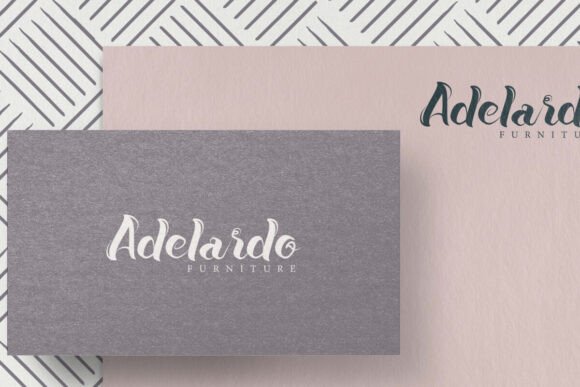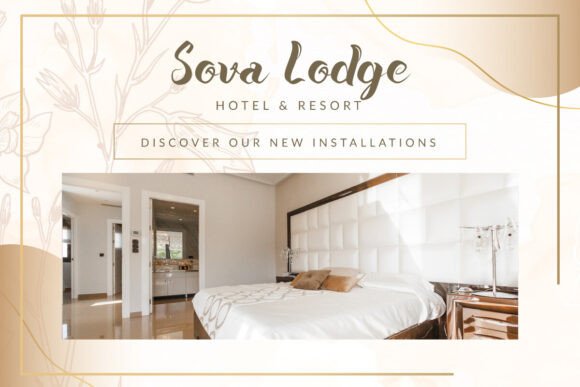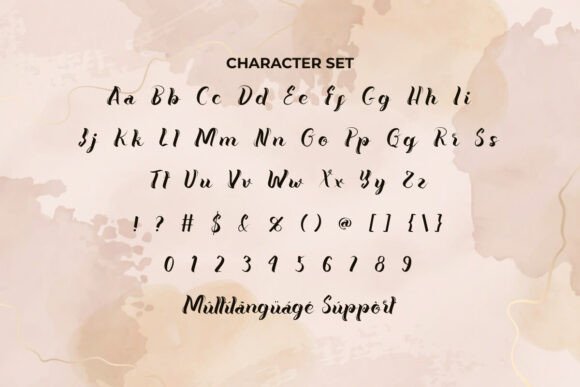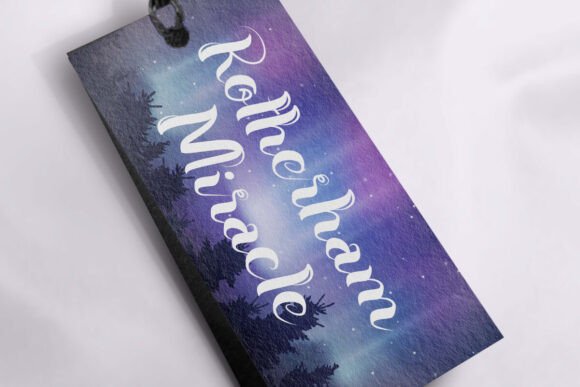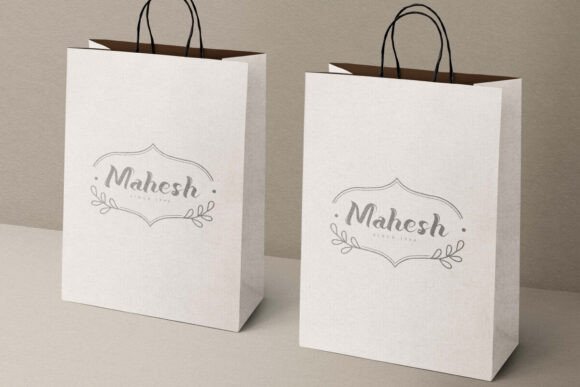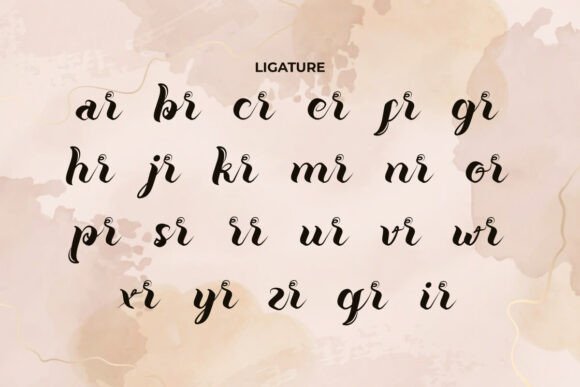
Introduction to Rotherham Miracle Font
Rotherham Miracle Font is a calligraphic script font with unique shaded style which looks stunning.
This font does the magic to make your designs look so dreamy, such as business card, custom design, invitation, label, magazine catalog, menu, poster, product packaging, quote, title, website, and more .
Key Features of Rotherham Miracle Font